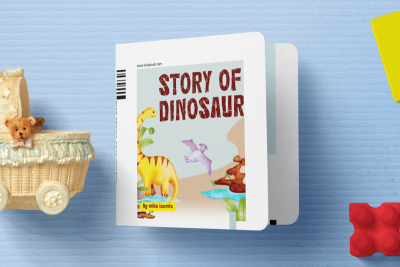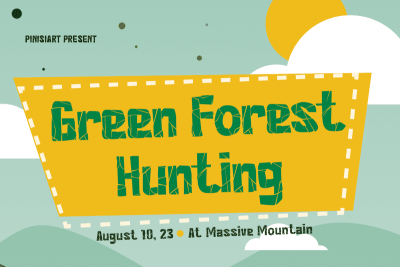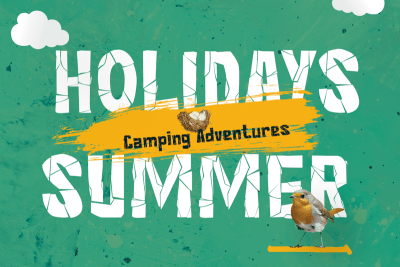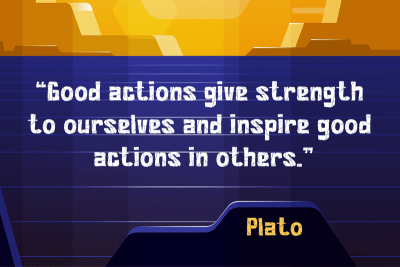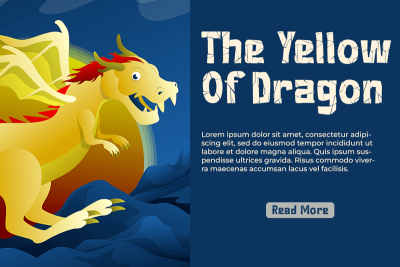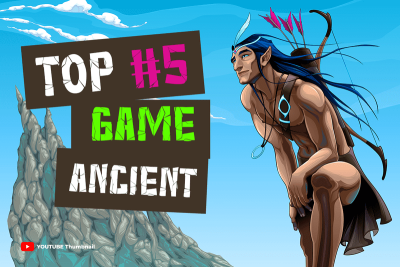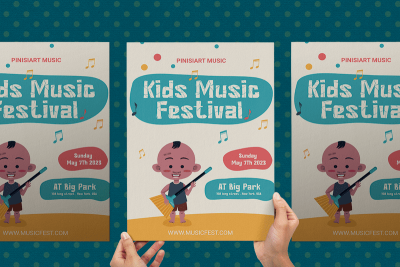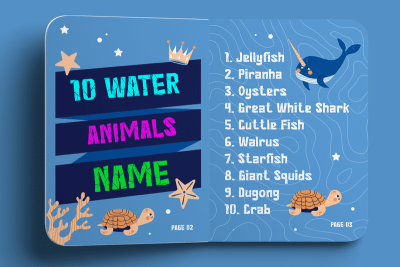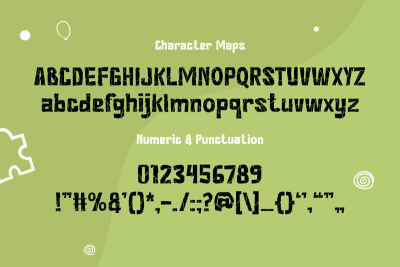
Gaming Font Pile of Rock offers a rugged and adventurous aesthetic, perfect for bold and dynamic creative projects. Inspired by rocky terrains and natural textures, this font captures strength and resilience. Its jagged, textured style brings a unique personality, making it suitable for gaming and storytelling alike.
This font not only commands attention but also ensures excellent readability. Whether you’re designing gaming titles, posters, or branding materials, this font enhances your visuals with a distinctive and memorable look. Its ability to blend ruggedness with clarity makes it ideal for a variety of audiences and creative needs.
Ideal Applications and Market Appeal
Gaming Font Pile of Rock thrives in designs that need a bold and adventurous feel. For example, it works perfectly for gaming logos, action-packed visuals, and adventure-themed projects. It adds a playful yet edgy vibe to game titles, merchandise branding, and event posters, making it highly versatile.
Its textured, rocky design also suits environmental themes and outdoor-inspired branding. Designers and marketers can use it to evoke a sense of energy and exploration. This font creates emotional connections with audiences, ensuring your designs are both impactful and memorable.
In addition to its aesthetic appeal, this font offers practicality. Its bold structure ensures legibility even in visually complex layouts. This makes it a reliable choice for video game interfaces, promotional banners, and social media content. The font helps storytellers and creators combine bold style with functional design.
Why Choose Gaming Font Pile of Rock?
Gaming Font Pile of Rock stands out for its ability to deliver a rugged yet approachable feel to your designs. It transforms ordinary text into a powerful visual that embodies adventure and energy. Its playful and dynamic tone helps your projects stand out in competitive markets.
Whether you’re designing for gaming, creating themed merchandise, or building digital content, Gaming Font Pile of Rock is a perfect fit. Its textured style adds depth to your work, while its adaptability makes it suitable for a range of creative contexts. With this font, your designs will leave a lasting impression and resonate with your audience.